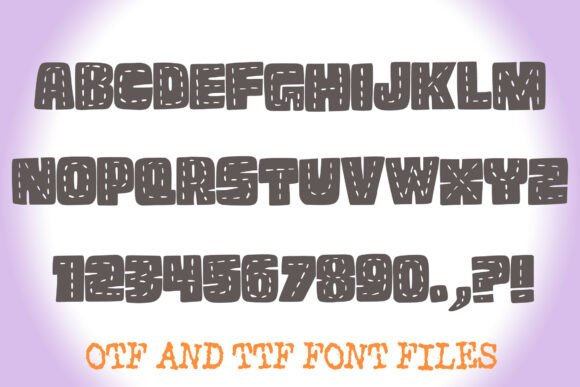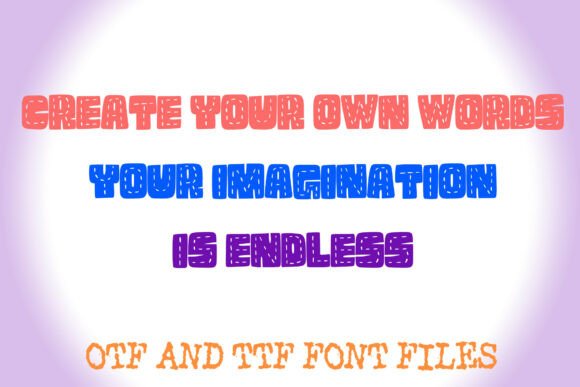
Introducing the Chunky Block Stitch Font: Add a Handmade Touch to Your Designs
Are you looking for a unique and playful font to add a personal touch to your creative projects? Look no further than the Chunky Block Stitch Font, a bold and handcrafted typeface that mimics the texture of chunky stitched thread. Inspired by sewing and embroidery, this font is perfect for designers and crafters who want to bring a fun, cozy, and handmade feel to their work.
What is the Chunky Block Stitch Font?
The Chunky Block Stitch Font is a carefully crafted typeface that replicates the look of chunky stitched thread, commonly used in sewing and embroidery projects. Its bold and playful design makes it ideal for a wide range of creative applications, from DIY printables and quilting graphics to handmade branding and apparel design.
Key Features of the Chunky Block Stitch Font
- Handcrafted with love: Each letter and character is meticulously designed to mimic the texture and look of chunky stitched thread.
- Bold and playful: The font’s chunky design adds a fun and eye-catching element to any text, making it perfect for designs that need to stand out.
- Highly versatile: The Chunky Block Stitch Font can be used for a wide range of creative projects, from sewing and embroidery-inspired crafts to digital designs and printables.
Perfect for Crafters and Designers
The Chunky Block Stitch Font is a must-have for crafters and designers who want to add a personal touch to their work. Whether you’re working on sewing-themed graphics, embroidery patterns, or fun stitched lettering, this font gives your text a warm, textured, and eye-catching appearance.
Ideal Use Cases
- Embroidery-inspired crafts: Use the Chunky Block Stitch Font to create custom embroidery patterns, stitch guides, and craft tutorials.
- Sewing projects: Add a handmade touch to your sewing projects with custom labels, tags, and graphics featuring the Chunky Block Stitch Font.
- DIY printables: Create custom printables, such as planners, stickers, and gift tags, with a fun and playful font.
- Quilting graphics: Use the Chunky Block Stitch Font to create custom quilting patterns, labels, and graphics.
- Handmade branding: Add a personal touch to your handmade branding with custom labels, packaging, and marketing materials.
- Cricut and Silhouette projects: Use the Chunky Block Stitch Font to create custom vinyl decals, iron-on designs, and paper crafts.
- Posters and invitations: Create eye-catching posters and invitations with a bold and playful font.
- Apparel design: Use the Chunky Block Stitch Font to create custom apparel designs, such as t-shirts, hoodies, and tote bags.
- Scrapbooking: Add a handmade touch to your scrapbooking projects with custom journaling, titles, and embellishments.
- Digital designs: Use the Chunky Block Stitch Font to create custom digital designs, such as social media graphics, blog headers, and email newsletters.
The Chunky Block Stitch Font is a versatile and playful typeface that adds a handmade touch to any creative project. With its bold and textured design, it’s perfect for crafters and designers who want to bring a fun and cozy feel to their work. Whether you’re working on sewing-themed graphics, embroidery patterns, or digital designs, this font is a must-have in your design toolkit. So why wait? Add the Chunky Block Stitch Font to your collection today and start creating unique and eye-catching designs that stand out from the crowd!